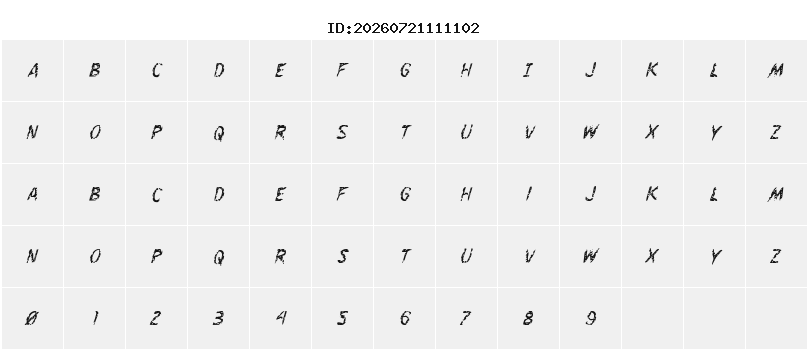
Flesh-Eating Comic Condensed Italic Preview
• Font Name: Flesh-Eating Comic Condensed Italic
• Font Style: Condensed Italic
• Full Font Name: Flesh-Eating Comic Condensed Italic
About Flesh-Eating Comic Condensed Italic.ttf
Flesh-Eating Comic Condensed Italic.ttf is a modern, elegant sans-serif font designed for ultimate readability and visual harmony. Perfect for branding, headlines, web design, and print materials.